Wedding invitation fonts live or die on two things: how they look printed at 2-3 inches on card stock, and how well they pair with a plain serif for all the practical details (dates, addresses, RSVP info) nobody wants to read in a fancy script. If you’ve been searching for free fonts for wedding invitations, these picks are curated with exactly that in mind.
| Great Vibes | Monoline script | Main invitation script |
| Cormorant Garamond | High-contrast serif | Formal invitation body text |
| Alex Brush | Brush script | Names and monograms |
| Parisienne | Connecting vintage script | Old-world, vintage invitations |
| EB Garamond | Classic serif | Venue, date, and RSVP details |
| Dancing Script | Bouncing casual script | Casual or destination weddings |
| Marcellus | Understated classical serif | Understated header text |
| Allura | Flowing script | Alternative romantic script |
| Sacramento | Casual monoline script | Bridal shower or engagement invites |
| Italiana | Refined editorial serif | Editorial-style invitations |
Great Vibes
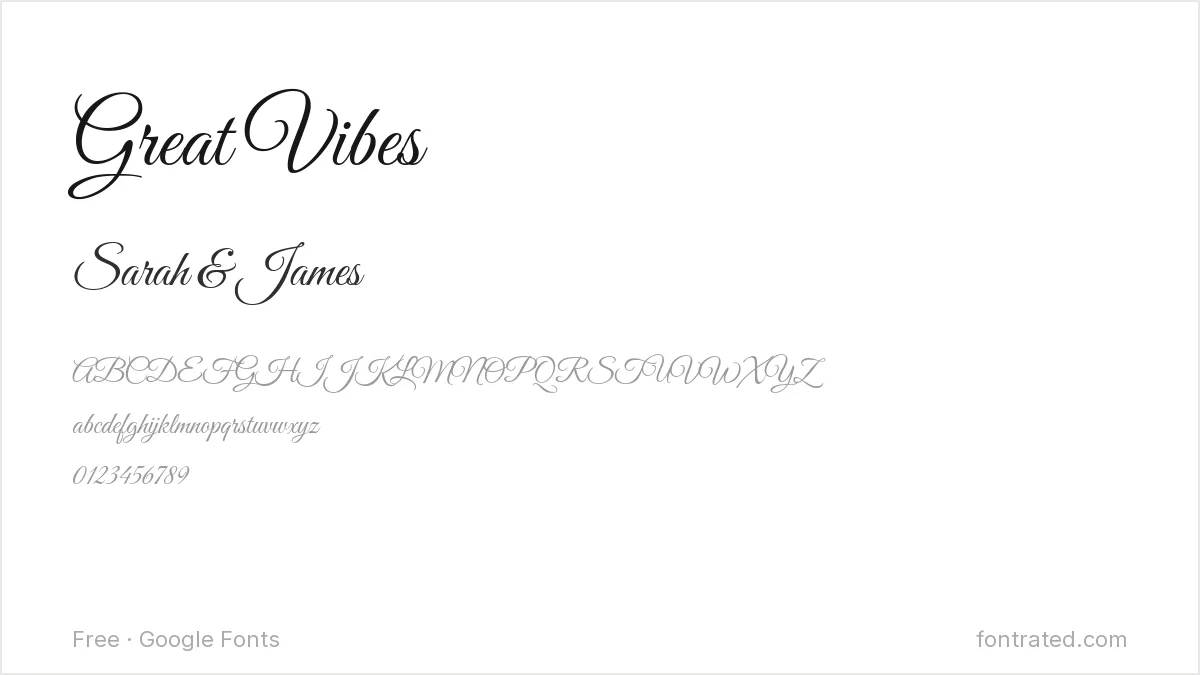
A flowing monoline script with consistent stroke width throughout — romantic without the ornate flourishes that can get hard to read at small sizes.
Cormorant Garamond
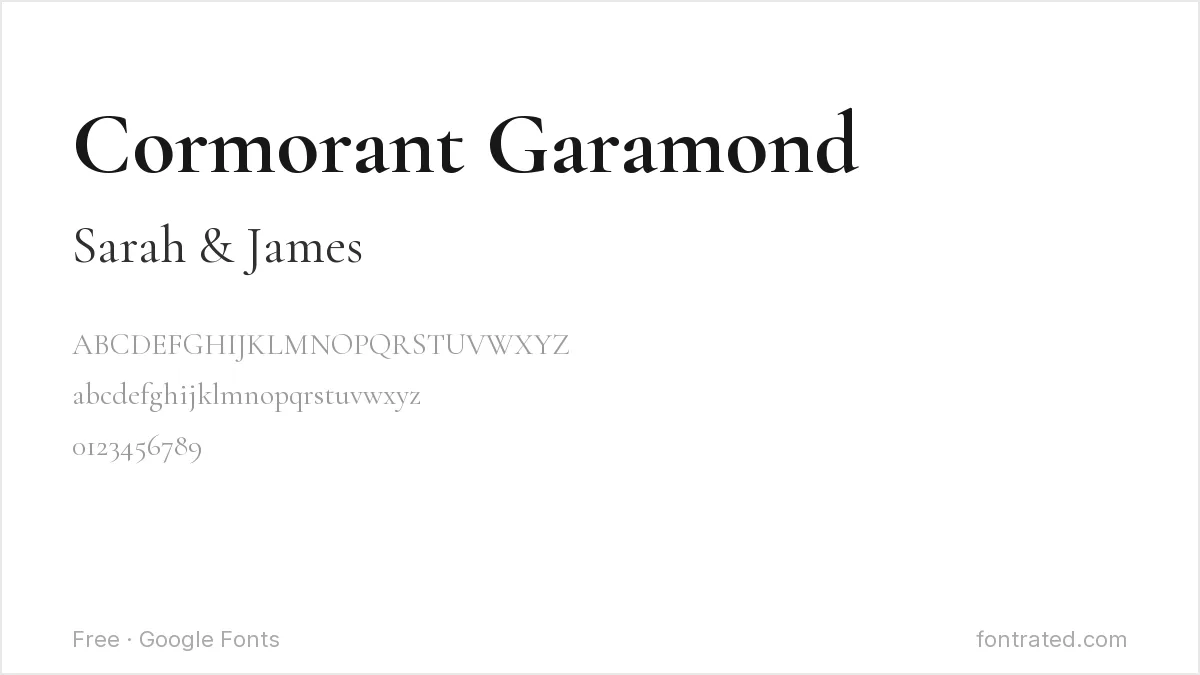
A delicate, high-contrast serif drawn from old-style Garamond proportions. Reads as formal and literary — the safe, elegant choice for the main invitation text.
Alex Brush
A bold brush script with confident, sweeping swashes. Best reserved for names or monograms rather than full sentences, where the swashes can start to collide.
Parisienne
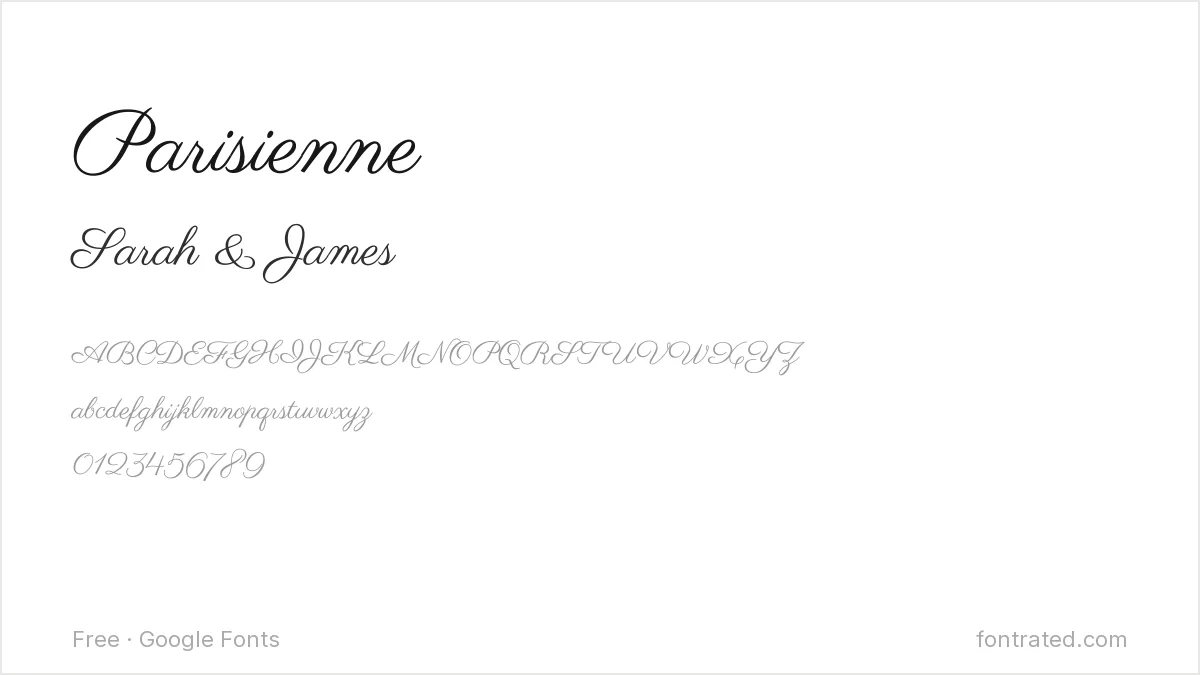
A connecting script with a vintage Parisian feel — narrower and more delicate than Great Vibes, good for invitations leaning into an old-world aesthetic.
EB Garamond
A faithful digital revival of Claude Garamont’s 16th-century originals. This is the workhorse font for the actual details — venue, date, time — that needs to be legible above all else.
Dancing Script
A lively, bouncing script with a more casual, playful energy than Great Vibes or Alex Brush — suited to relaxed, outdoor, or destination weddings rather than formal black-tie ones.
Marcellus
An understated classical serif with wide, calm proportions. A good header font for couples who want elegance without a script’s flourish.
Allura
A flowing script similar in spirit to Great Vibes but with slightly sharper, more angular joins — worth comparing the two side by side before picking.
Sacramento
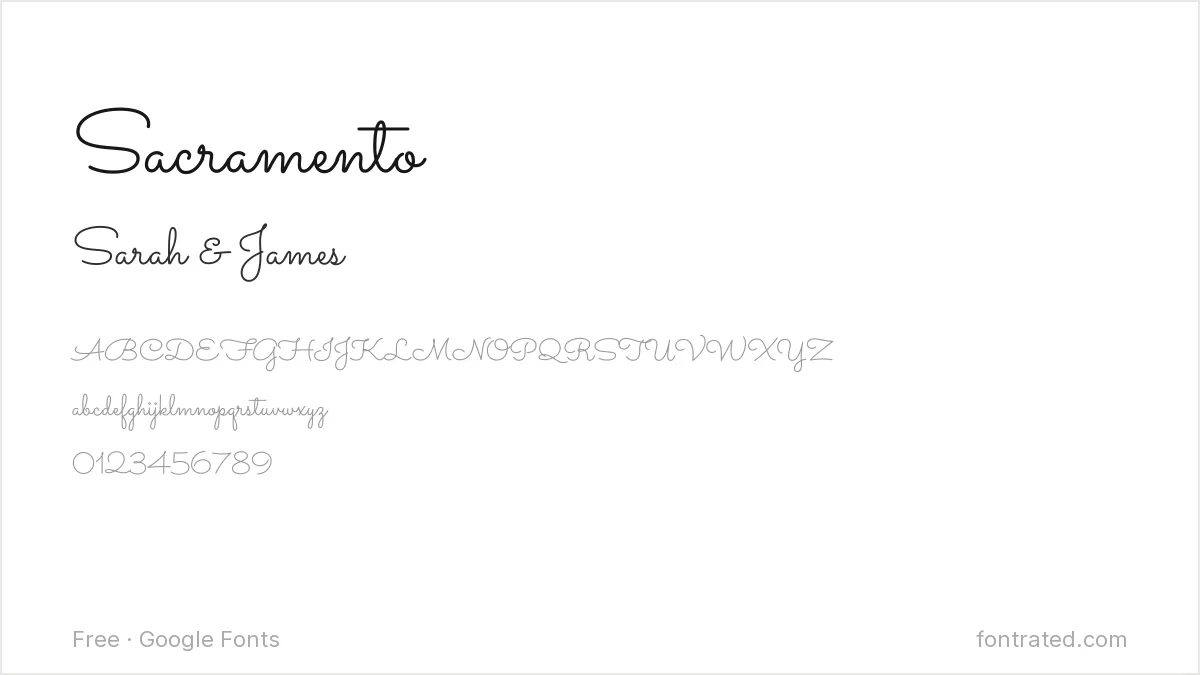
A casual, monoline script with a relaxed, handwritten quality — less formal than Alex Brush, good for bridal shower or engagement party invitations rather than the main ceremony card.
Italiana
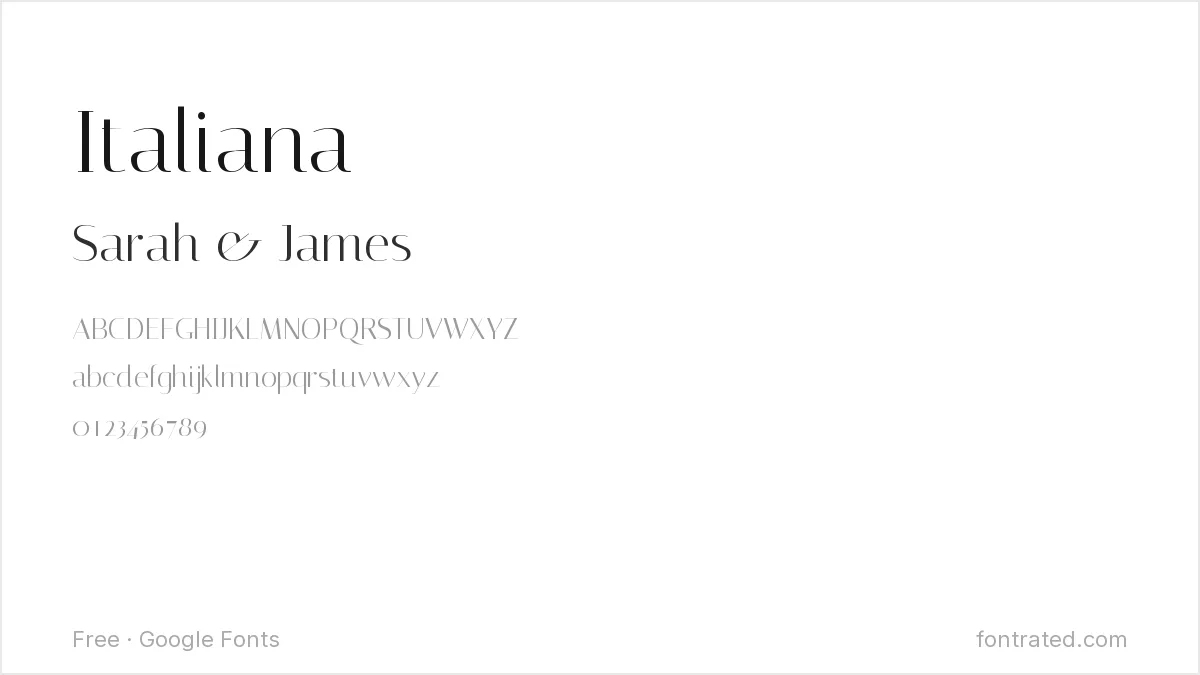
A refined, high-contrast serif with an editorial, old-Italian-fashion-magazine feel. An elegant alternative to Playfair Display for couples who want something a little less common.
A pairing rule that works almost every time: one script font for the couple’s names, one plain serif (EB Garamond or Marcellus) for every other line of text. Two scripts on one card is where invitations usually go wrong.
Frequently Asked Questions
Will a script font like Great Vibes or Alex Brush print clearly at small sizes on cardstock?
Mostly yes, but test it first: fine hairline strokes in script fonts can lose crispness below about 10-11pt when printed, especially on textured cardstock. For anything smaller than the couple’s names set as a headline, lean on one of the plainer serifs (EB Garamond, Marcellus) instead.
How many different fonts should one invitation actually use?
Two, almost always — one script or display font for the couple’s names, one plain serif for the practical details (date, time, venue, RSVP). Three or more starts to look busy and undermines the elegance a wedding suite is going for.